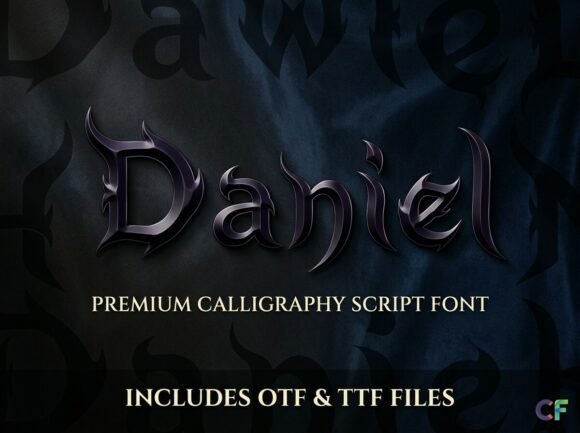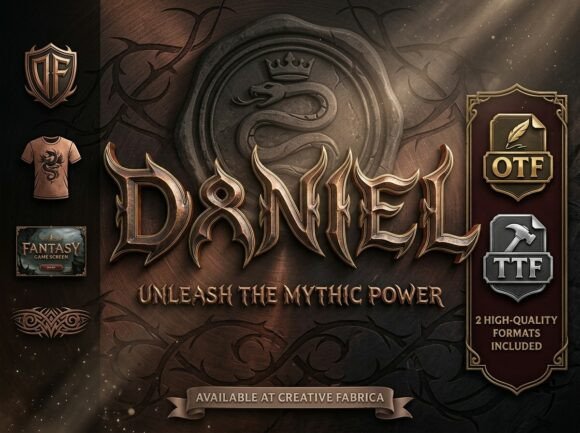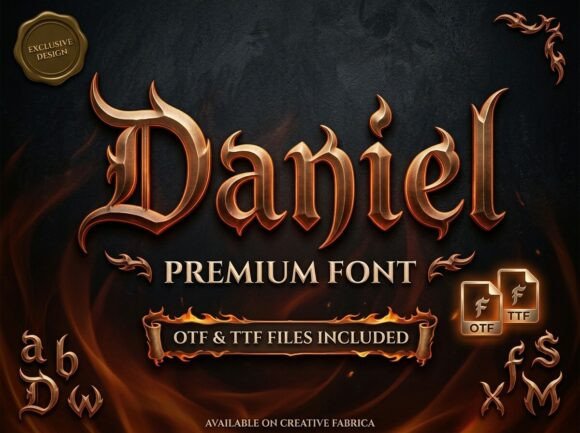
The Ultimate Guide to Daniel: A Premium Calligraphy Script Font
I’ll never forget the design project that led me to discover Daniel, a premium calligraphy script font. I was working on a luxury branding project for a high-end fashion boutique, and I was struggling to find the perfect font that exuded both elegance and edginess. The client wanted a signature-style logo that would make their brand stand out in a crowded market. After hours of scouring font libraries and marketplaces, I stumbled upon Daniel, and it was love at first sight ✨.
An Honest Review of Daniel
What I Love About Daniel
- ✨ **Unique and bold design**: Daniel’s sharp, aggressive lines and thorn-like flourishes give it a distinctive look that’s both intimidating and elegant.
- ✅ **High-gloss metallic finish**: The font’s metallic finish adds a touch of luxury and sophistication, making it perfect for high-end branding projects.
- 💡 **Versatile and flexible**: Daniel can be used for a wide range of design projects, from signature-style logos to social media quotes.
- 🤔 **Limited use in body text**: Due to its bold and ornate design, Daniel may not be the best choice for body text or long-form content.
- ⚠️ **Requires careful kerning**: Some users have reported issues with kerning, particularly when using the font at smaller sizes.
Daniel was inspired by the dark-luxe aesthetic, a design trend that combines luxury and edginess. The font’s creator wanted to create a typeface that would evoke the feeling of high-end fashion and sophistication, while also having a rebellious and bold edge. The result is a font that’s both elegant and intimidating, perfect for brands that want to stand out in a crowded market.
Q: What is the best way to use Daniel in a logo design?
A: Daniel is perfect for signature-style logos, particularly those that require a bold and elegant look. Use the font as a standalone element or combine it with other design elements to create a unique logo.
Q: Can I use Daniel for body text?
A: While Daniel is a beautiful font, it may not be the best choice for body text due to its bold and ornate design. However, it can be used for short-form content, such as social media quotes or headings.
Q: Is Daniel suitable for print design?
A: Yes, Daniel is suitable for print design, particularly for luxury packaging, advertising, and branding projects. Its high-gloss metallic finish and bold design make it perfect for eye-catching print materials.
Q: Can I use Daniel for digital design?
A: Absolutely! Daniel is perfect for digital design, particularly for social media graphics, website headers, and online advertising. Its bold and elegant design makes it perfect for grabbing attention in a crowded digital landscape.